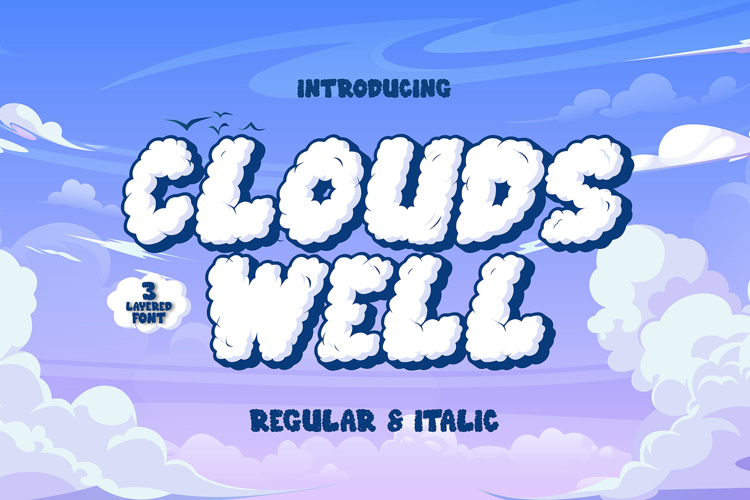
Clouds Well - 3d Decorative layered display font
Cloud Well is a 3D decorative layered display font designed to bring a soft, whimsical touch to any project with its unique cloud-like shape. This font offers multiple styles, including solid, the core layer, and shadow and inner shadow options, which add depth, dimension, and a playful sense of movement. These elements allow for creative layering, making it easy to craft visually stunning designs. Cloud Well comes in regular and italic versions, providing even more flexibility and variation for your projects. With its charming, puffy cloud design, this font is perfect for creative displays, posters, children’s books, playful packaging, branding, and any design that calls for a dreamy, lighthearted, and imaginative feel. Whether you’re aiming for a soft, floating look or a more dynamic layered effect, Cloud Well gives you endless possibilities to elevate your designs.